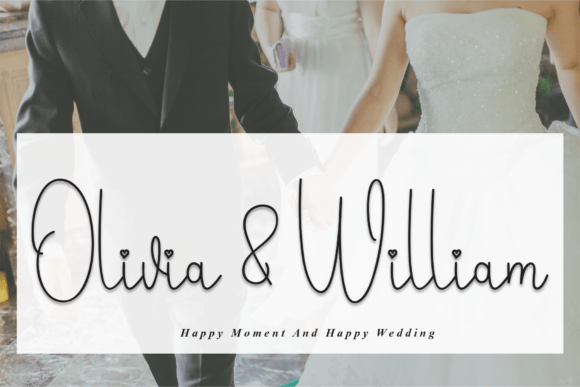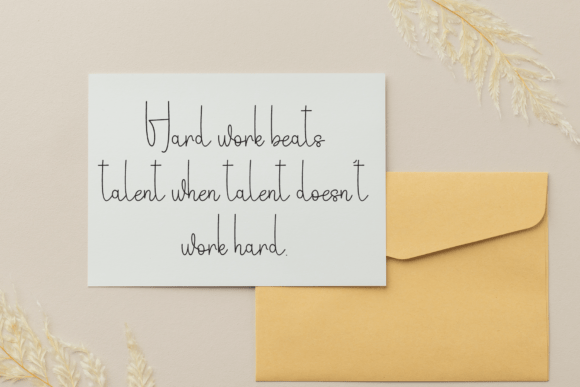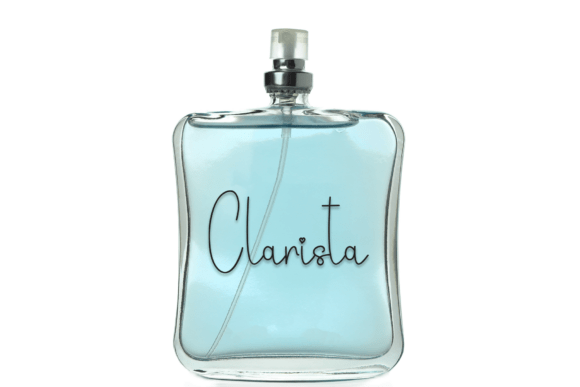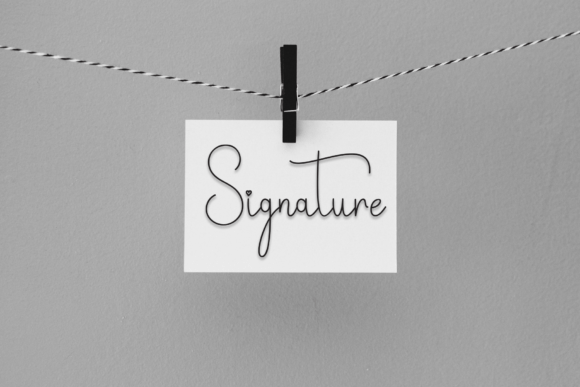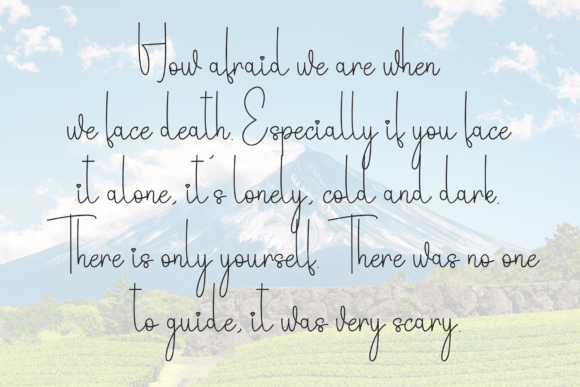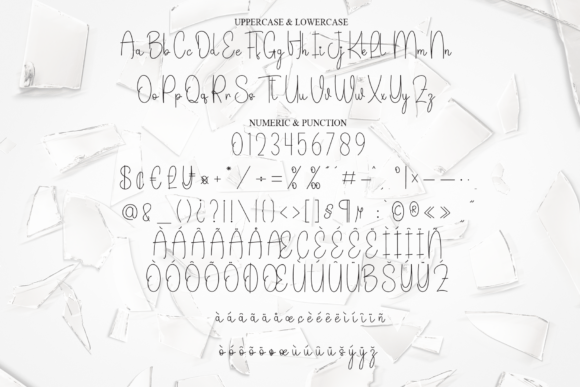
Introducing Destroy Font: Elevate Your Designs with Elegance and Charm
In the world of typography, few fonts manage to capture the essence of elegance and charm as effortlessly as Destroy Font. This stylish handwritten script font is a masterpiece of modern design, boasting fluid, graceful strokes that immediately elevate any project to new heights of sophistication. Whether you’re a designer looking to add a personal touch to your branding, or a crafter seeking the perfect font for invitations and stationery, Destroy Font is the perfect choice.
The Beauty of Fluid Strokes
One of the standout features of Destroy Font is its fluid, handwritten strokes. Each letter is crafted with precision and care, resulting in a natural flow that is both visually appealing and highly legible. The smooth curves and refined lines create a sense of movement and energy, making it perfect for designs that require a touch of dynamism and personality.
Whether you’re creating a logo, invitation, or social media graphic, Destroy Font adds a level of sophistication and refinement that is hard to match. Its elegant strokes and classic charm make it an excellent choice for a wide range of design applications, from wedding invitations and stationery to branding and packaging.
Perfect for Branding, Invitations, and Stationery
Destroy Font is a versatile font that can be used in a variety of design contexts. For branding, it adds a personal and sophisticated touch that helps to establish a strong visual identity. For invitations and stationery, it creates a timeless and refined look that is sure to impress.
Imagine using Destroy Font to create a beautiful wedding invitation, complete with elegant flourishes and refined lines. Or, picture it being used in a branding campaign to add a touch of personality and sophistication to a company’s logo and marketing materials. The possibilities are endless, and the results are sure to be stunning.
Key Features of Destroy Font
- Fluid, handwritten strokes: Create a natural, elegant look that is both visually appealing and highly legible.
- Smooth curves and refined lines: Add a touch of sophistication and refinement to any design.
- Timeless, classic charm: Perfect for designs that require a touch of elegance and refinement.
- Versatile and adaptable: Suitable for a wide range of design applications, from branding and invitations to stationery and packaging.
Tips for Using Destroy Font
To get the most out of Destroy Font, here are a few tips to keep in mind:
- Use it sparingly: While Destroy Font is a beautiful font, it can be overwhelming if used excessively. Use it sparingly to add a touch of elegance and sophistication to your design.
- Pair it with complementary fonts: Destroy Font pairs well with a variety of fonts, including sans-serif and serif fonts. Experiment with different pairings to find the perfect combination for your design.
- Experiment with different colors and textures: Destroy Font looks stunning in a variety of colors and textures. Experiment with different options to find the perfect look for your design.
In conclusion, Destroy Font is a stylish handwritten script font that is sure to elevate any design to new heights of elegance and charm. With its fluid, graceful strokes and timeless, refined look, it is perfect for branding, invitations, and stationery. Whether you’re a designer or crafter, Destroy Font is a must-have font that is sure to become a staple in your design toolkit.